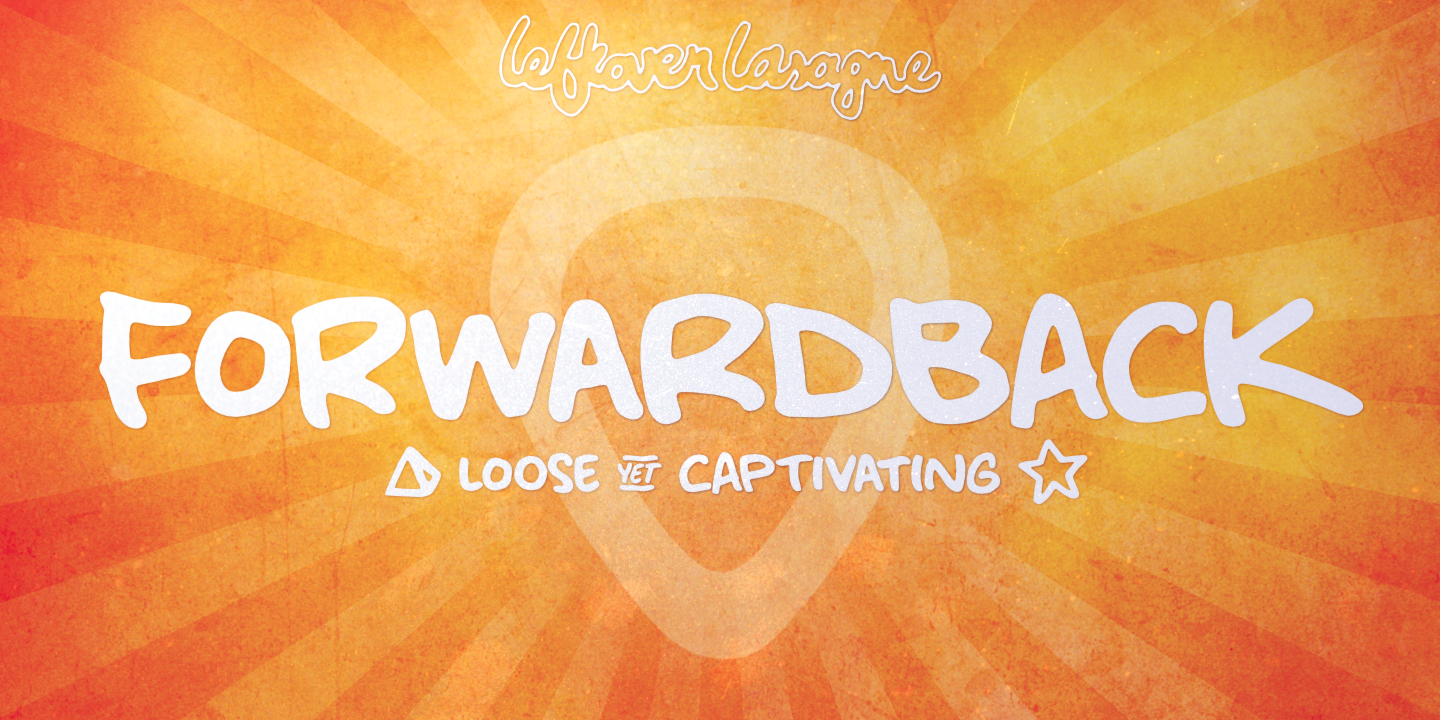
Forwardback LL Font Free Download is a bold and energetic sans-serif typeface that combines modern design with a friendly and approachable feel. Its clean lines and rounded shapes make it ideal for creative projects, logos, headlines, posters, and more. The font's distinctive style adds a dynamic and engaging touch to any design, making it stand out in both digital and print formats.
With its strong presence, Forwardback LL works perfectly for both large text and smaller body copy, providing excellent readability while maintaining a playful and bold aesthetic. Whether you're designing for a brand, an event, or any creative campaign, this font delivers a unique visual impact.
Incorporate Forwardback LL Font Free Download into your next project to add a vibrant, modern look that elevates your design with its clean, rounded style.